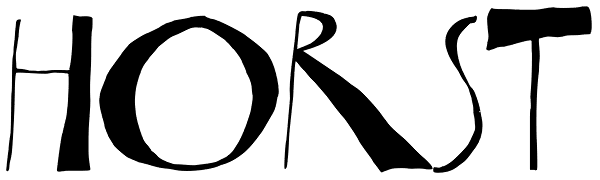
Horst
Inspired by Laatzen’s Bilderbogen etchings by the extraordinary artist and printmaker Horst Janssen, this font is packed with Open Type features that allow the creation of unique typographic pieces. Besides the set of automatic discretionary...